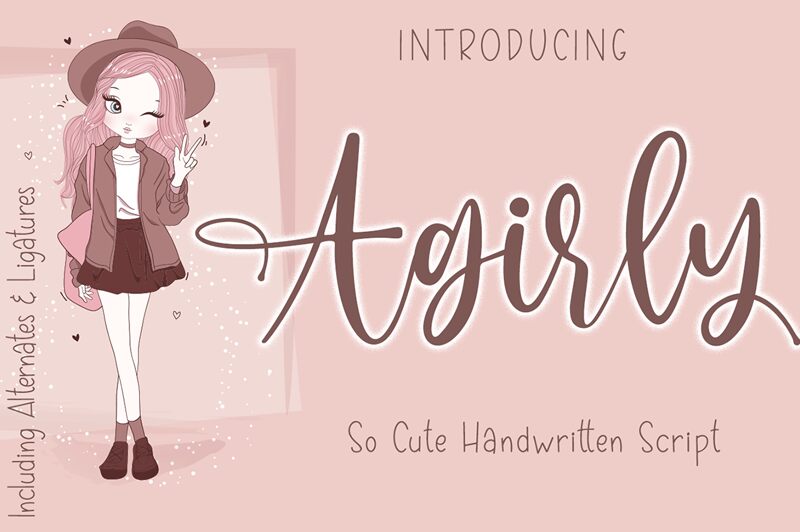
Agirly, a creation of Absonstype Studio, brings the charm of handwritten notes to digital design with its fluid strokes and personal touch. Its cursive elegance is reminiscent of calligraphy, making it a delightful choice for projects that require a hint of intimacy and flair. The graceful curves and varying stroke thickness give it a dynamic rhythm, perfect for adding character to invitations, branding materials, and personalized goods.
From wedding stationery to boutique logos, Agirly excels in contexts that benefit from its approachable yet sophisticated vibe. It stands out as an inviting font that wraps text in warmth and authenticity, resonating with viewers on a more personal level.